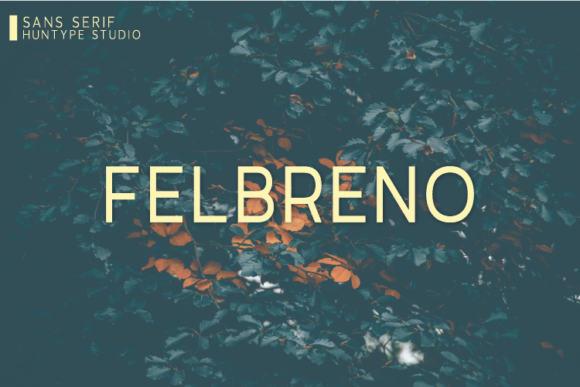
Felbreno Font: A Distinct and Delicate Sans Serif for Your Designs
When it comes to choosing the right font for your design project, the options can be overwhelming. With so many styles and types to choose from, it’s easy to get lost in the sea of typography. However, if you’re looking for a font that stands out from the crowd, look no further than Felbreno. This distinct and delicate sans serif font is perfect for adding a touch of elegance and sophistication to any design.
What is Felbreno Font?
Felbreno is a modern sans serif font that boasts a clean, authentic, and smooth vibe. Its delicate features make it an excellent choice for designs that require a subtle yet impactful typography. The font’s simplicity and clarity make it easy to read, even at smaller sizes, making it perfect for body text, headings, and titles.
Felbreno’s design is characterized by its rounded edges and gentle curves, which give it a friendly and approachable feel. The font’s x-height is relatively high, making it highly legible, even for smaller text sizes. The font’s overall aesthetic is minimalist, making it an excellent choice for designs that require a clean and uncluttered look.
Why Use Felbreno Font?
Felbreno’s versatility makes it an excellent choice for a wide range of design projects. Here are some reasons why you should consider using Felbreno font:
- Clean and Authentic Look: Felbreno’s clean and authentic design makes it perfect for designs that require a professional and modern look.
- High Legibility: The font’s high x-height and clear letterforms make it easy to read, even at smaller sizes.
- Versatility: Felbreno is suitable for a wide range of design projects, from branding and advertising to web design and publishing.
- Unique and Distinctive: Felbreno’s delicate features make it stand out from more traditional sans serif fonts, giving your design a unique and distinctive look.
Design Tips for Using Felbreno Font
To get the most out of Felbreno font, here are some design tips to keep in mind:
- Pair with Bold Fonts: Felbreno’s delicate features make it an excellent choice for pairing with bolder fonts. Try pairing it with a bold serif font for a striking contrast.
- Use for Headings and Titles: Felbreno’s clean and authentic design makes it perfect for headings and titles. Use it to add a touch of elegance to your design.
- Experiment with Colors: Felbreno’s simple design makes it easy to use with a wide range of colors. Experiment with different colors to find the perfect combination for your design.
Felbreno Font Features
Felbreno font comes with a range of features that make it an excellent choice for designers. Here are some of the key features:
- Clean and Simple Design: Felbreno’s clean and simple design makes it easy to use and versatile.
- Highly Legible: The font’s high x-height and clear letterforms make it easy to read, even at smaller sizes.
- Support for Multiple Languages: Felbreno font supports multiple languages, making it an excellent choice for global designs.
Where to Use Felbreno Font?
Felbreno’s versatility makes it suitable for a wide range of design projects. Here are some places where you can use Felbreno font:
- Branding and Advertising: Felbreno’s clean and authentic design makes it perfect for branding and advertising projects.
- Web Design: The font’s high legibility and clean design make it an excellent choice for web design projects.
- Publishing: Felbreno’s simple and elegant design makes it suitable for publishing projects, such as books, magazines, and newspapers.
In conclusion, Felbreno font is a distinct and delicate sans serif font that is perfect for adding a touch of elegance and sophistication to any design. Its clean and authentic design, high legibility, and versatility make it an excellent choice for a wide range of design projects. Whether you’re working on a branding project, web design, or publishing project, Felbreno font is sure to make a hit.